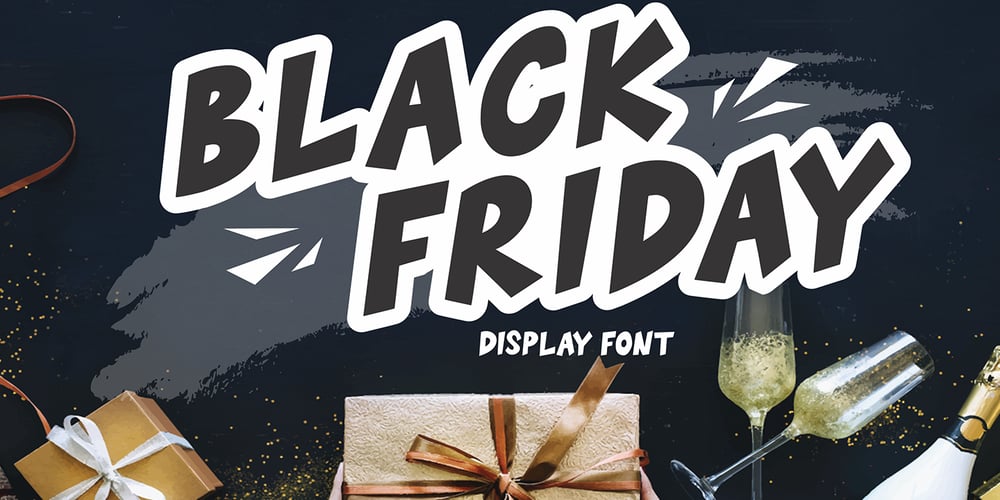
Black Friday Font Family was designed by Su Wondo and published by Girinesia. Black Friday contains 1 styles and family package options. Hello guys…We proud presenting our new font. It’s name Black Friday Font .It’s a ‘crunchy’ comical sans serif, inspired by pop art style comic font.This special creative font is a fun that can be used for comics, manga, anime or any other design project.Good choice for project purpose, for creating logo, packaging, posters, headers, wall arts, cafe banner, t-shirt design, advertisements, kids stuff, social media posts and much more!Features:All Uppercase Numerals & Punctuations MultilanguageWorks on PC & MacFonts include Multilingual Support for; Afrikaans, Albanian, Catalan, Danish, Dutch, English, Icelandic, Italian, Spanish, Portuguese, German, Swedish, Norweigen, Polish, Indonesian, ZuluInclude